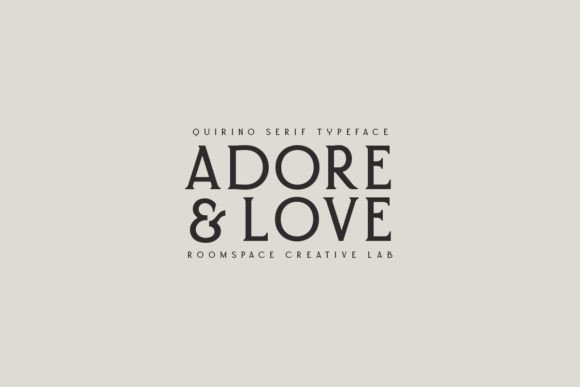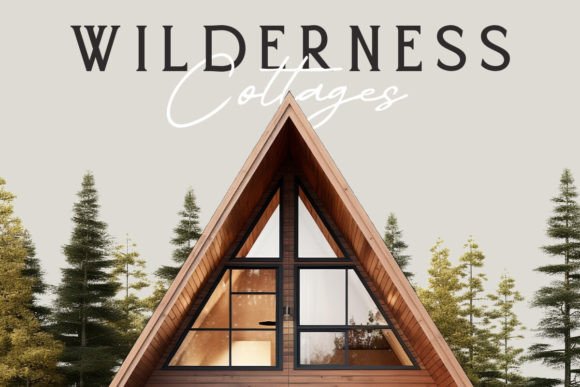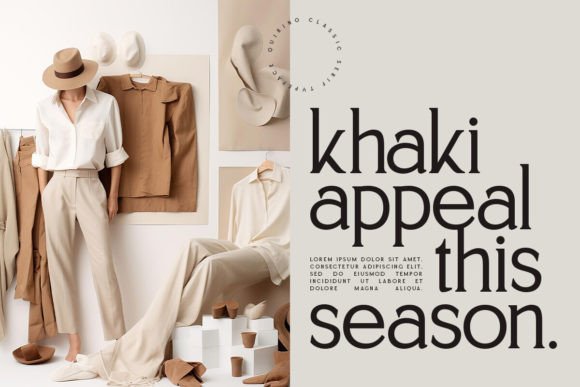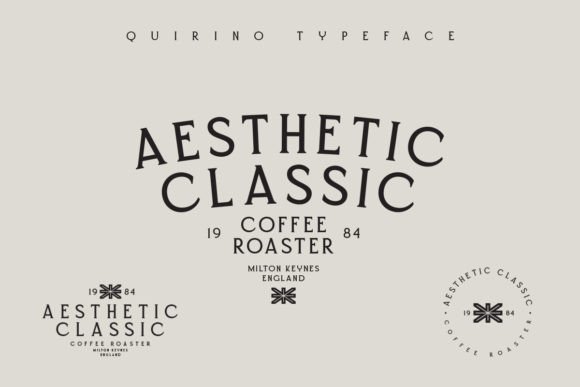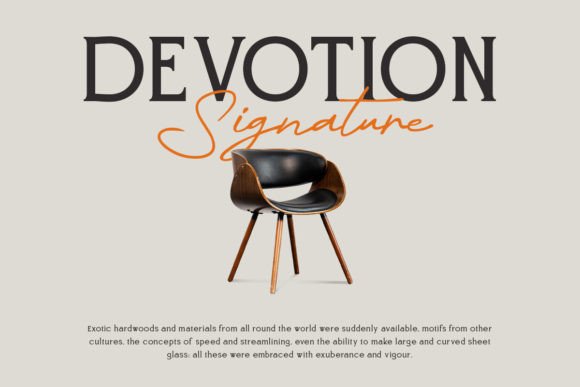
Introduction to Quirino Font
Have you ever been stuck in front of a blank canvas, staring at a computer screen, desperately searching for the perfect design element to elevate your project? This is where the magic happens, and the right font can be the game-changer you need. For designers, finding the perfect font can be a daunting task, but what if I told you there’s a font that can solve all your design woes?
Enter the Quirino Font, a classic serif font that seamlessly blends tradition and modernity, resulting in an elegant and versatile design. This high-quality font is a valuable resource for designers, offering a clean and refined aesthetic that’s perfect for a wide range of creative projects. Whether you’re working on a branding project, editorial design, or web content, Quirino Font is the ideal choice to give your text a timeless yet fresh look.
With its clean lines, precise curves, and transparent background, Quirino Font is a free download that’s sure to elevate your design projects to the next level.
Key Features of Quirino Font
- Unique, hand-drawn design style that adds a personal touch to any creative project, from branding to advertising.
Honest Review: Quirino Font
I recently had the chance to work with the Quirino Font, a free design resource that’s gaining popularity in the creative community. Initially, I was drawn to its unique and elegant style, perfect for high-quality design projects.
However, I did notice a few limitations ⚠️. The font doesn’t have a wide range of font sizes, which may limit its use in certain design situations. Additionally, the font family is relatively small, which may not be ideal for large-scale design projects.
Overall, I’m impressed with the Quirino Font’s potential. While it has some limitations, its unique style and free download option make it a great addition to any designer’s toolkit. With some further development, I believe the Quirino Font could become a top choice for designers everywhere. ✨
Quirino Font
Quirino Font is perfect for creative projects such as logos, brochures, business cards, and social media graphics. It’s also great for presentations, documents, and websites that require a unique and modern font style.